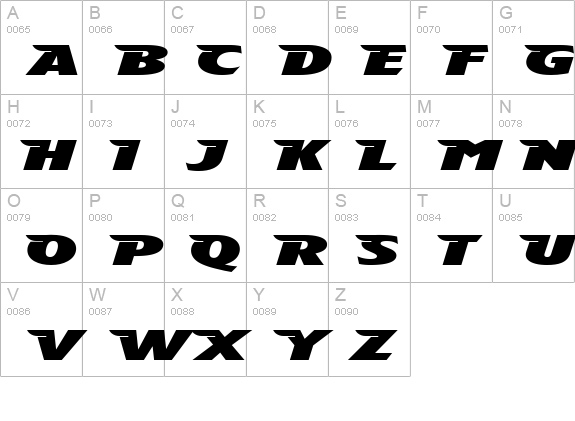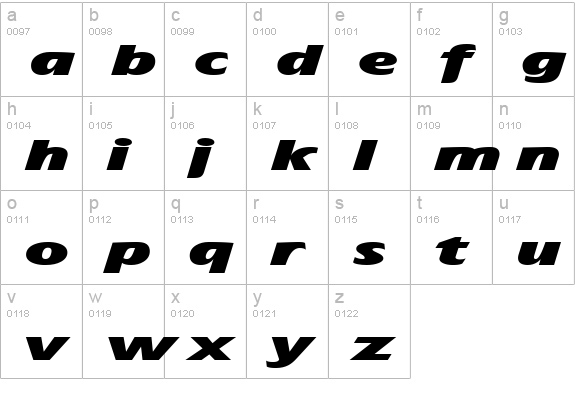
The Aeroplane Flies High Heavy is a heavy, high-impact variant in the The typeface family \xE2\x80\x94 well suited to high-impact headlines, posters, and display advertising.
The Aeroplane Flies High Heavy font is a bold and powerful typeface that exudes a sense of strength and determination. Its thick, robust letterforms make a statement, commanding attention and leaving a lasting impression. With its distinct and unique design, this font is perfect for projects that require a strong visual impact. The Aeroplane Flies High Heavy font is not only visually striking, but it also offers a sense of versatility. Whether you're designing a logo, creating headlines, or crafting a poster, this font will effortlessly adapt to your needs, effortlessly conveying your message with its bold presence. One of the best things about The Aeroplane Flies High Heavy font is that it is free. Yes, you read that right – this impressive typeface is freely available to download at FontsMarket.com. This means that you can add this powerful font to your design arsenal without any financial burden, making it an accessible and valuable resource for designers and creatives alike. So, if you're in search of a heavy font that will make a bold statement in your designs, look no further than The Aeroplane Flies High Heavy font. Its unique design, versatility, and the fact that it's free to download at FontsMarket.com make it an excellent choice for any project that demands a strong and impactful typeface.